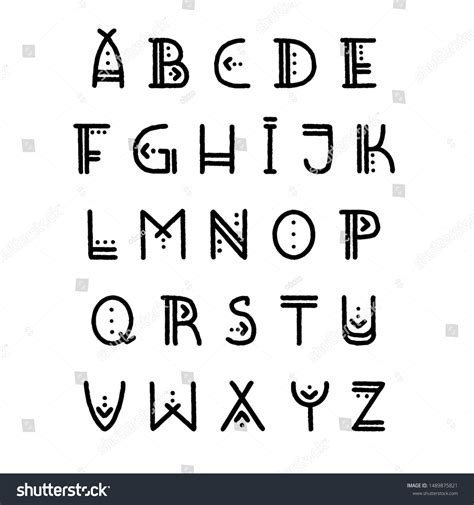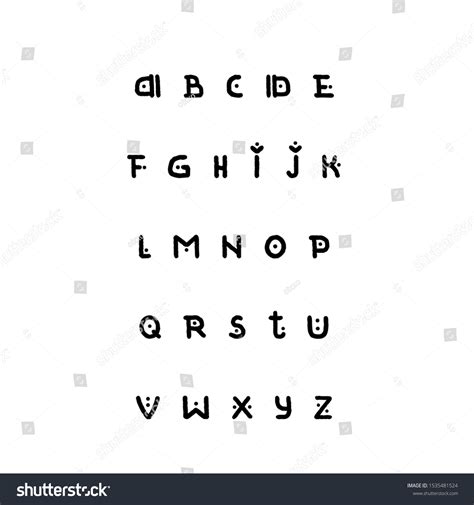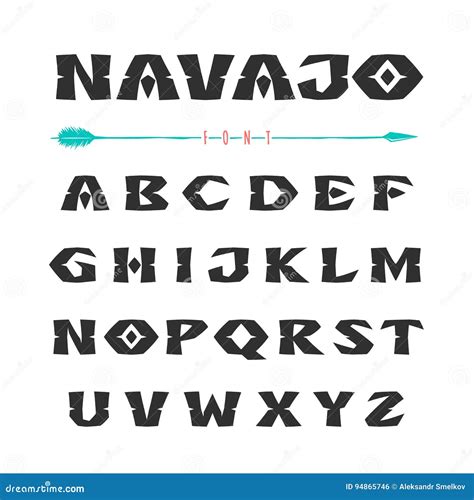
Typography is a powerful tool in graphic design, capable of conveying cultural heritage and artistic expression. One of the most intriguing and culturally rich areas of typography is the use of Native American Fonts. These fonts are not just aesthetic choices; they carry the weight of centuries of history, tradition, and storytelling. Understanding and appreciating Native American fonts can enrich your design projects and provide a deeper connection to indigenous cultures.
Understanding Native American Fonts
Native American fonts are inspired by the traditional art and symbols of various indigenous tribes across North America. These fonts often incorporate elements from tribal art, such as geometric patterns, animal motifs, and sacred symbols. Each font can tell a story, representing the unique cultural identity of a tribe.
One of the most well-known Native American fonts is the Cherokee Syllabary. Developed by Sequoyah in the early 19th century, this syllabary consists of 85 characters, each representing a syllable in the Cherokee language. The Cherokee Syllabary is a testament to the ingenuity and resilience of the Cherokee people, who created a written language to preserve their culture and knowledge.
Another notable example is the Navajo Font. The Navajo language is known for its complexity and rich phonetic structure. Navajo fonts often feature intricate designs that reflect the natural beauty of the Southwest, where the Navajo people have lived for centuries. These fonts are not only visually striking but also carry deep cultural significance.
The Cultural Significance of Native American Fonts
Native American fonts are more than just decorative elements; they are a means of cultural preservation and expression. For many indigenous communities, the use of traditional fonts in modern design helps to keep their languages and cultural heritage alive. By incorporating these fonts into contemporary projects, designers can pay homage to the rich history and traditions of Native American tribes.
For example, the Iroquois Font is inspired by the intricate beadwork and wampum belts of the Iroquois Confederacy. These designs are not only aesthetically pleasing but also carry deep symbolic meanings. The use of Iroquois fonts in design projects can help to educate others about the cultural significance of these symbols and the history of the Iroquois people.
Similarly, the Hopi Font is inspired by the traditional pottery and kachina dolls of the Hopi people. The Hopi font often features geometric patterns and stylized animal motifs, reflecting the natural world and the spiritual beliefs of the Hopi people. By using Hopi fonts in design, designers can help to preserve and promote the cultural heritage of the Hopi tribe.
Designing with Native American Fonts
When designing with Native American fonts, it is essential to approach the task with respect and cultural sensitivity. Here are some guidelines to help you incorporate these fonts into your projects effectively:
- Research and Understand: Before using a Native American font, take the time to research its cultural significance and history. Understanding the context and meaning behind the font will help you use it appropriately and respectfully.
- Choose Authentic Fonts: Ensure that the fonts you use are authentic and created by or in collaboration with members of the respective Native American tribes. This helps to support indigenous artists and designers and ensures that the cultural heritage is accurately represented.
- Use Appropriately: Consider the context in which you are using the font. Native American fonts should be used in a way that honors and respects the culture they represent. Avoid using these fonts in a trivial or disrespectful manner.
- Combine with Other Elements: Native American fonts can be combined with other design elements to create a cohesive and visually appealing project. Consider using traditional colors, patterns, and symbols that complement the font and enhance its cultural significance.
Here is an example of how you might use a Native American font in a design project:
| Design Element | Description |
|---|---|
| Font Choice | Choose a Native American font that reflects the cultural heritage of the tribe you want to honor. For example, the Cherokee Syllabary for a project related to Cherokee history. |
| Color Scheme | Select a color scheme that complements the font and enhances its visual appeal. Traditional colors associated with the tribe can add authenticity to the design. |
| Additional Elements | Incorporate other design elements such as geometric patterns, animal motifs, or sacred symbols that are relevant to the tribe. These elements can help to create a cohesive and culturally rich design. |
📝 Note: Always seek permission from the tribe or cultural group before using their fonts or symbols in a commercial project. This ensures that you are respecting their intellectual property and cultural heritage.